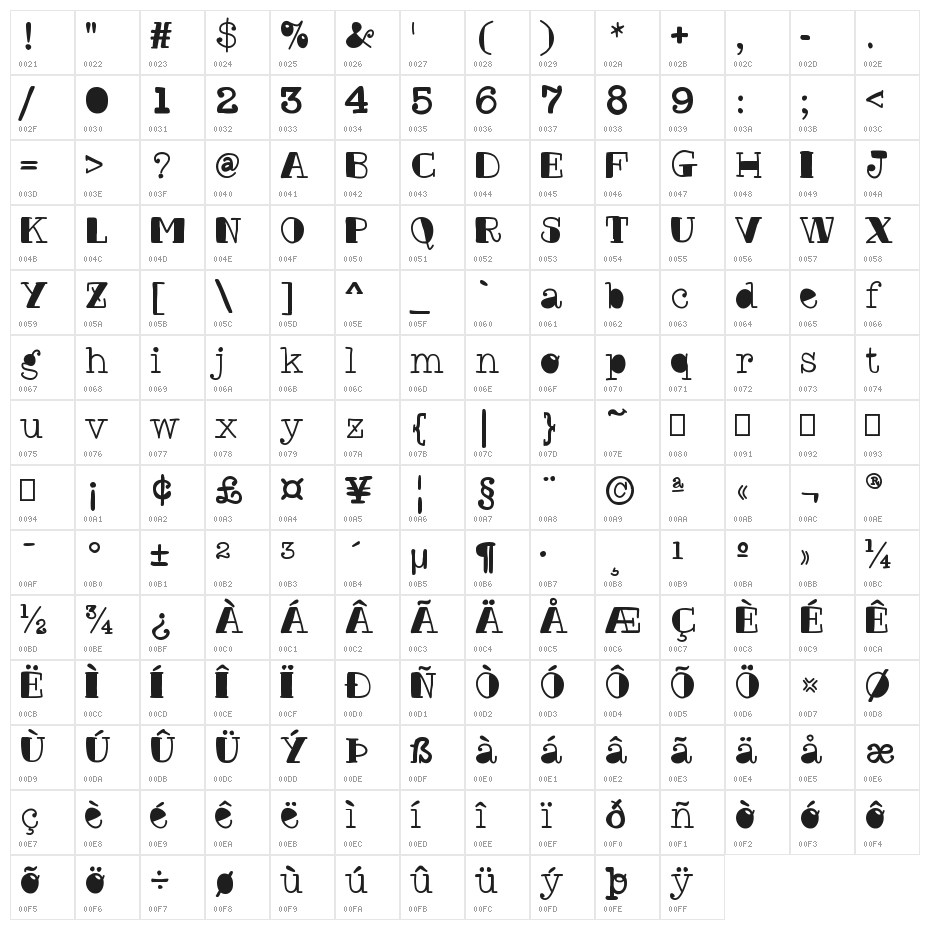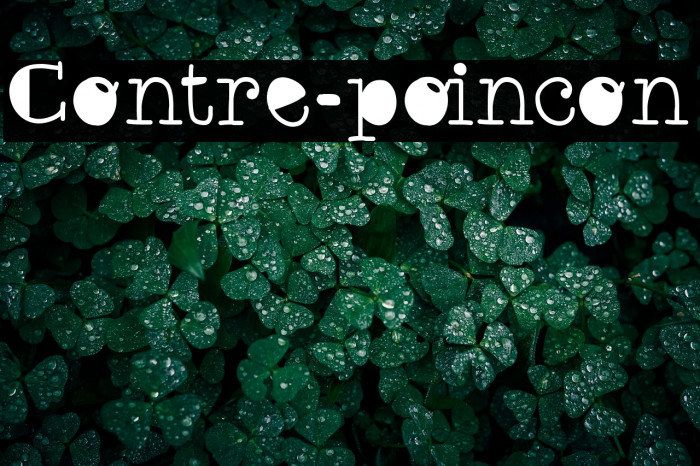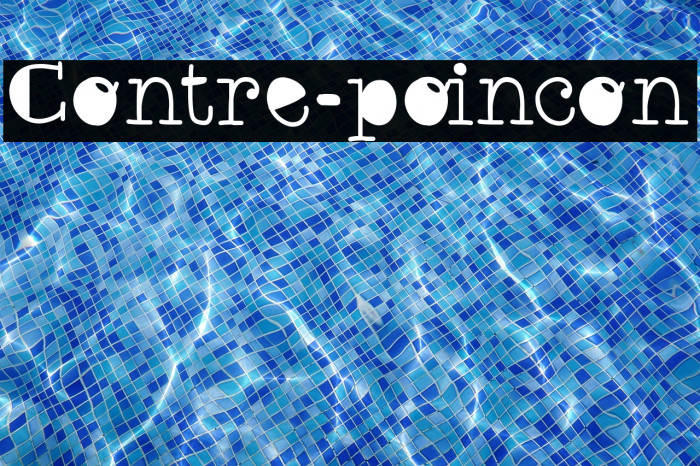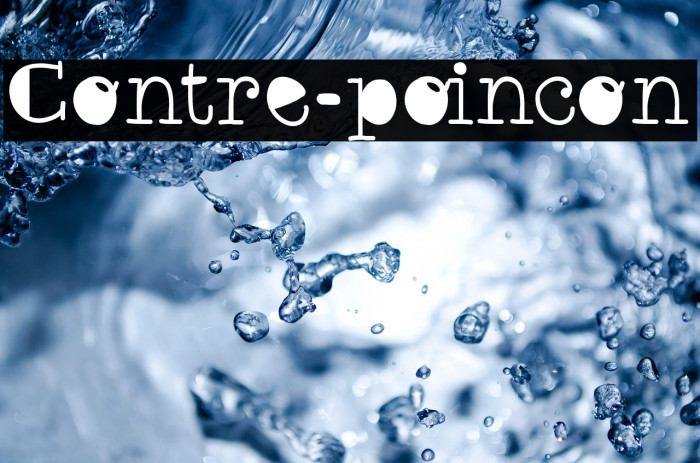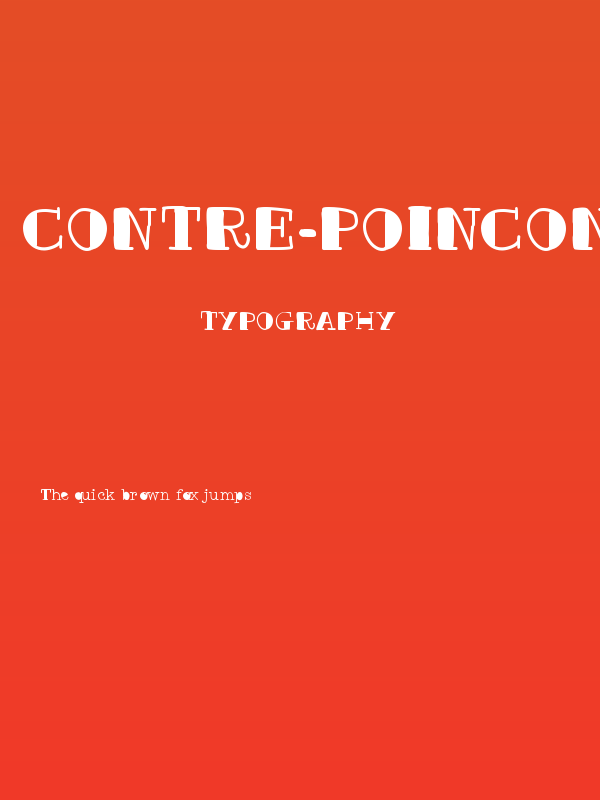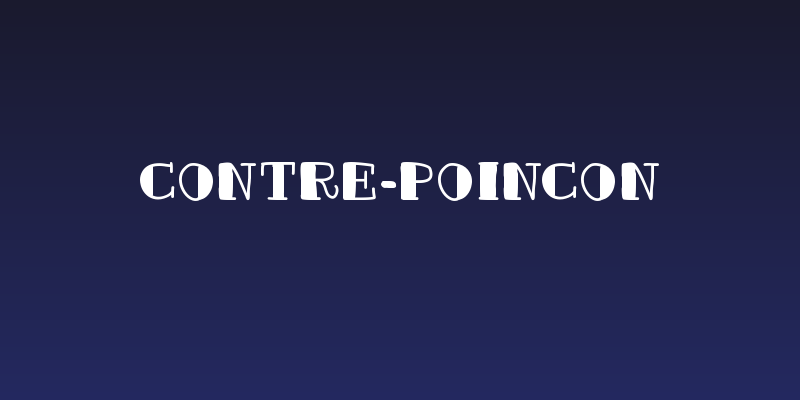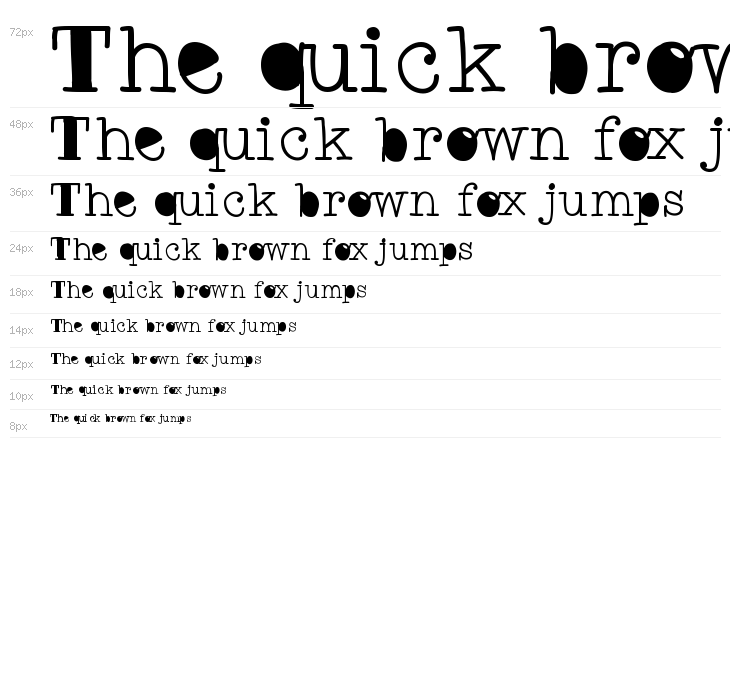
Contre-poincon Font
Contre-poincon Description
This font features a unique blend of bold and playful elements, characterized by its thick, rounded serifs and slightly uneven strokes that give it a whimsical and artistic feel. The uppercase letters are bold and prominent, while the lowercase letters maintain a consistent style with a touch of quirkiness. The numbers are equally bold, ensuring visibility and impact. Special characters are designed with the same playful approach, making them stand out. The overall design is both modern and retro, suitable for creative projects that require a distinctive and eye-catching typeface.